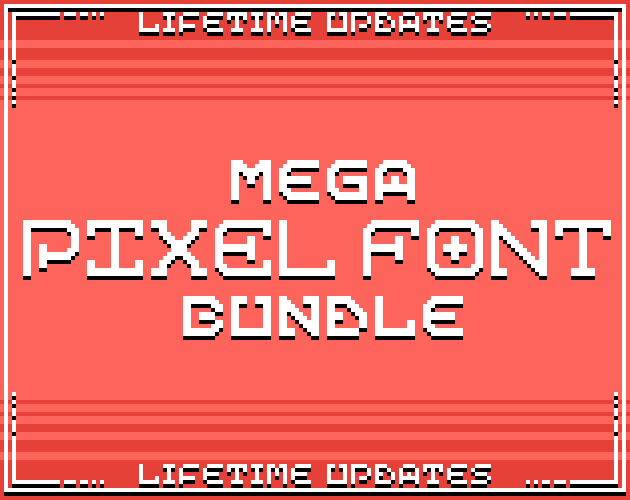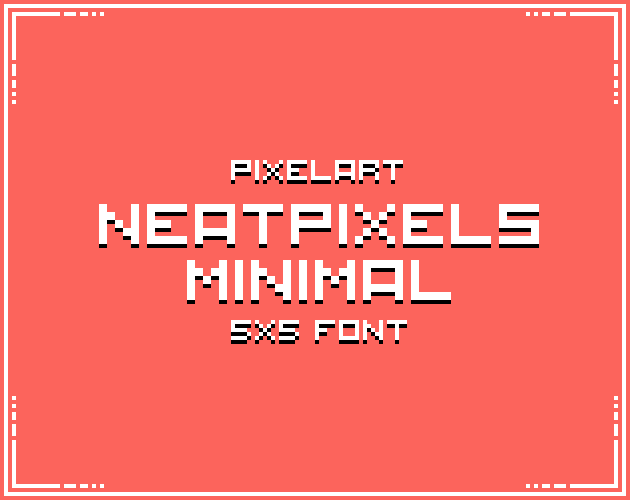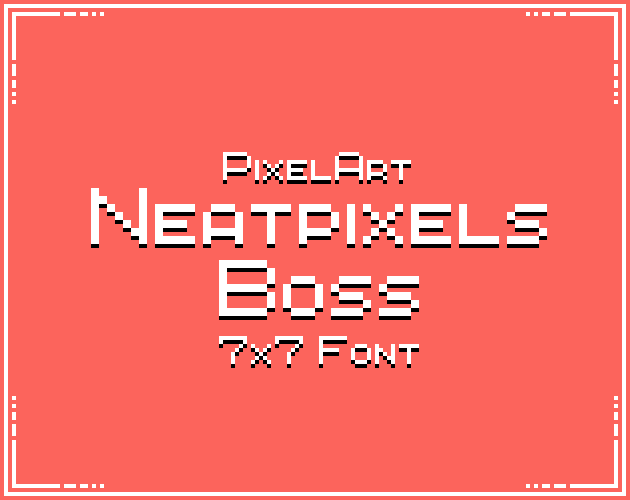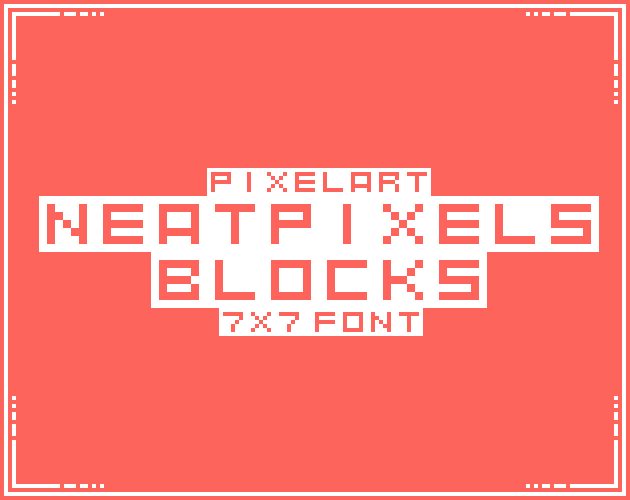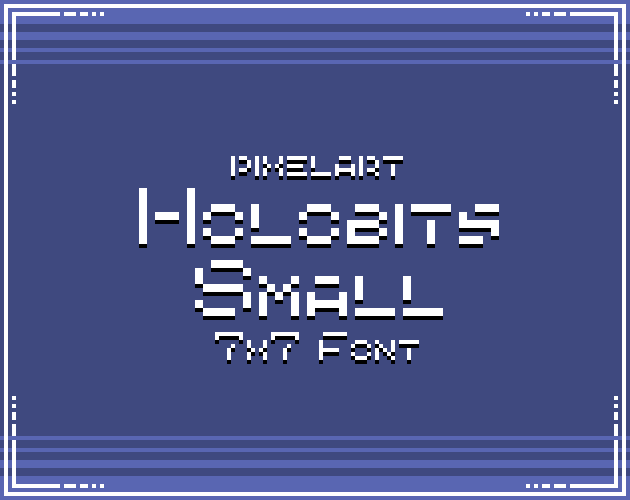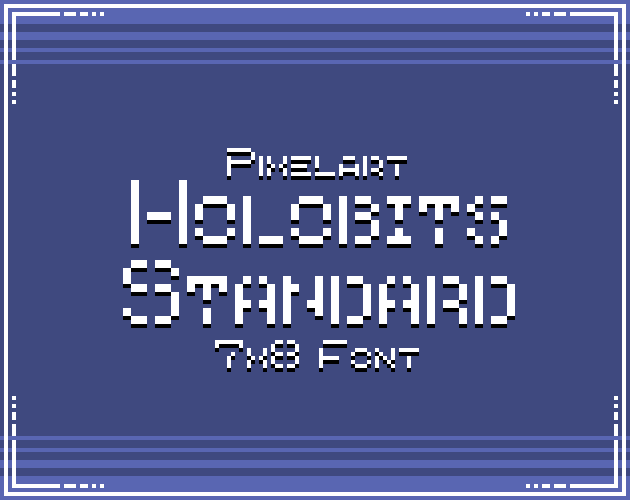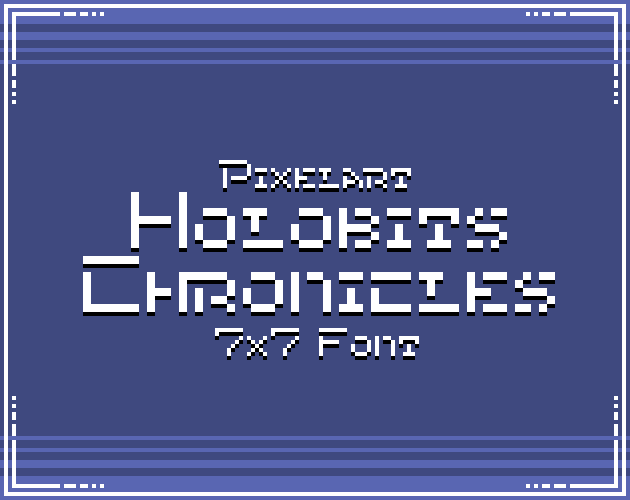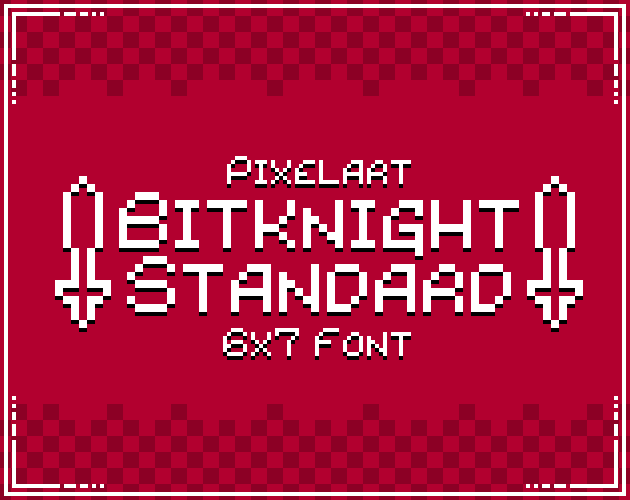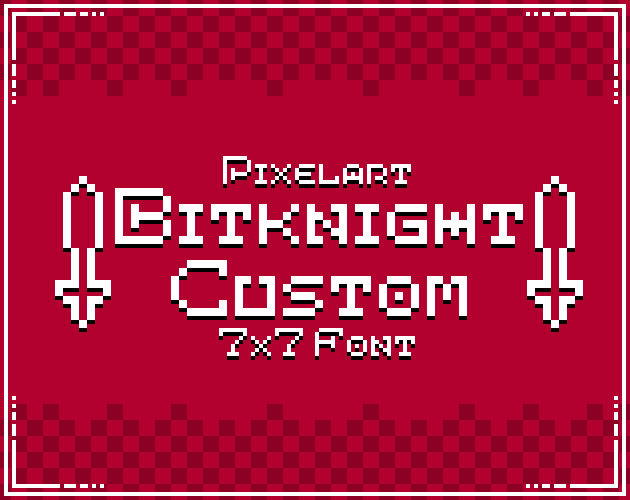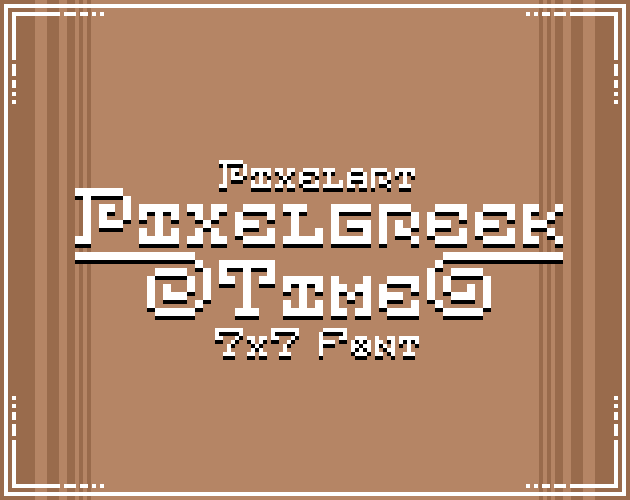
Mega Pixel Fonts Bundle
Mega Pixel Fonts Bundle!
Pixelart font specifically for game developers seeking a new, nostalgic touch in their creations. Bring back that sense of retro gaming while offering nice readability and versatility. Whether used for dialogues, UI elements, or captions, this font will elevate your gaming experiences with its distinctive style and character.
✔ Pixelart Fonts Asset Pack
✔ Pixelart Fonts Asset Pack 2
✔ Pixelart Fonts Asset Pack 3
✔ Pixelart Fonts Asset Pack 4
✔ Pixelart Fonts Asset Pack 5
✔ Arcadia Forge [7x7 Pixel Font]
✔ Dark Arcanum Pixel Font
✔ Neatpixels Minimal [Pixelart 5x5 Font]
✔ Neatpixels Standard [Pixelart 6x6 Font]
✔ Neatpixels Boss [Pixelart 7x7 Font]
✔ Neatpixels Blocks [Pixelart 7x7 Font]
✔ Holobits Small [Pixelart 7x7 Font]
✔ Holobits Standard [Pixelart 7x8 Font]
✔ Holobits Chronicles [Pixelart 7x7 Font]
✔ Bitknight Standard [6x7 Pixel Font]
✔ Bitknight Custom [7x7 Pixel Font]
✔ Pixelgreek Time [7x7 Pixel Font]
✔ Pixcharm Mini [6x7 Pixel Font]